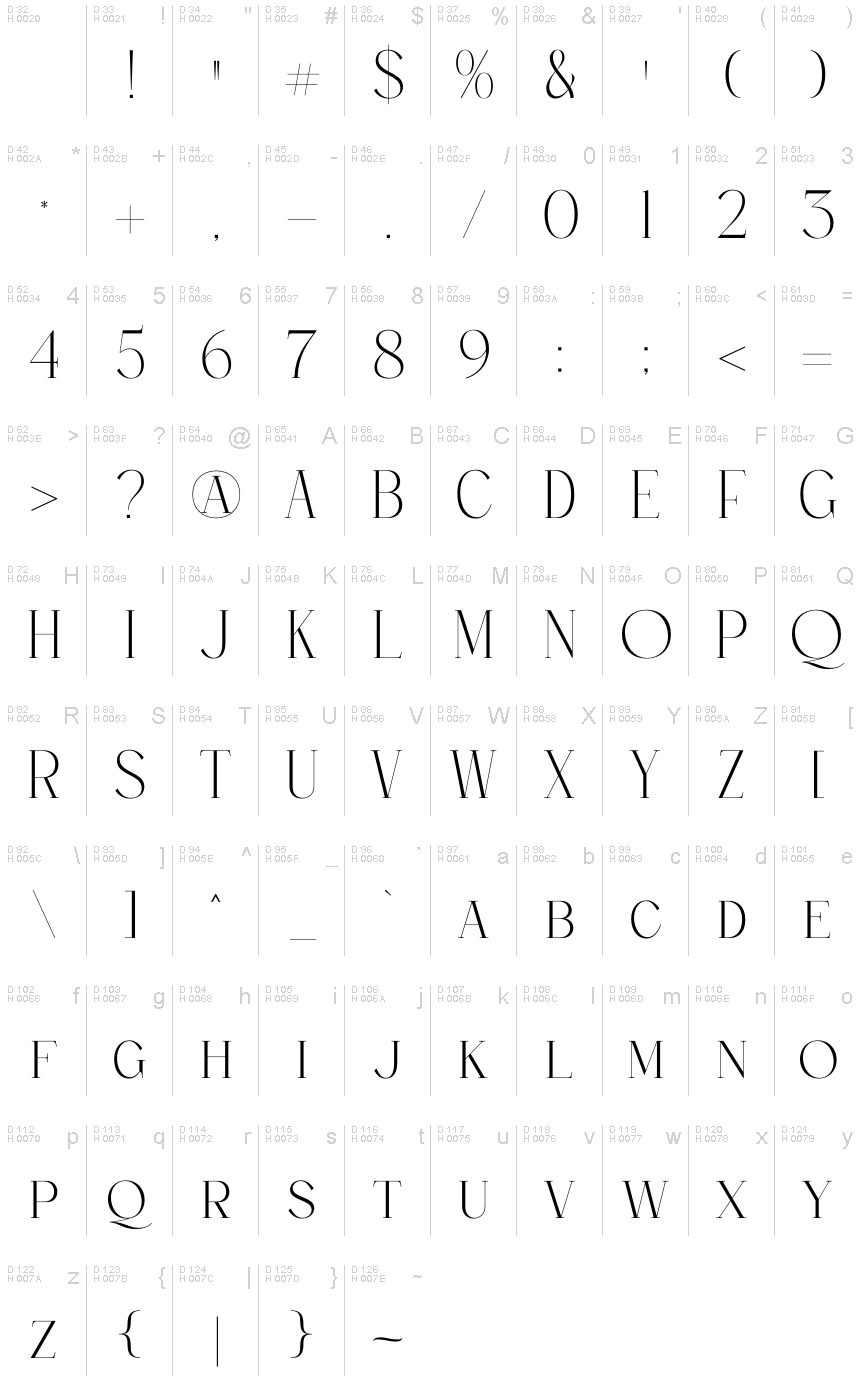
Qelthan
Qelthan, designed by Storytype Studio, exudes a delicate elegance with its airy, light strokes and refined serif detailing. This font captivates the eye through its sophisticated curves and balanced structure, making it a perfect choice for both modern and classic design aesthetics. Its graceful presence allows for effortless readability while adding a touch of sophistication to any project.
Ideal for branding, invitations, or editorial layouts, Qelthan can elevate the visual impact of your designs with its charm. Whether you’re crafting a luxury logo or designing an inviting webpage, this font’s unique character is sure to draw attention and convey an essence of understated elegance. Choose Qelthan to infuse your work with style and personality that resonates deeply with your audience.